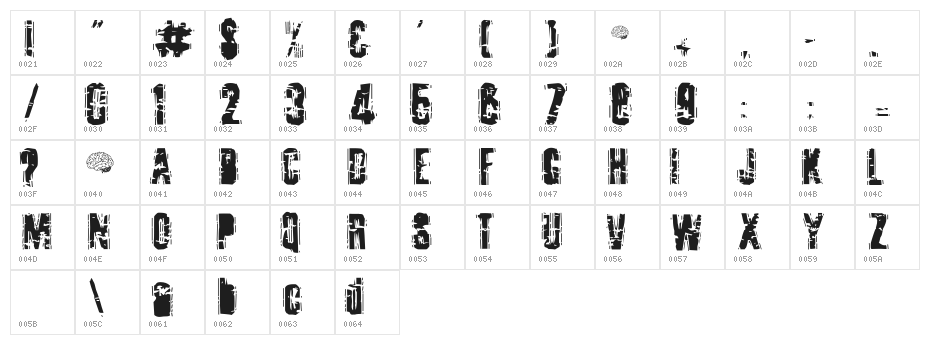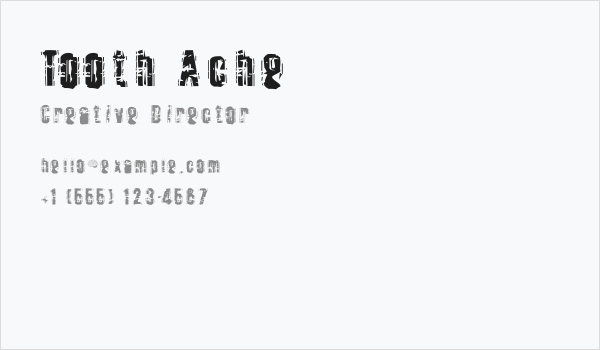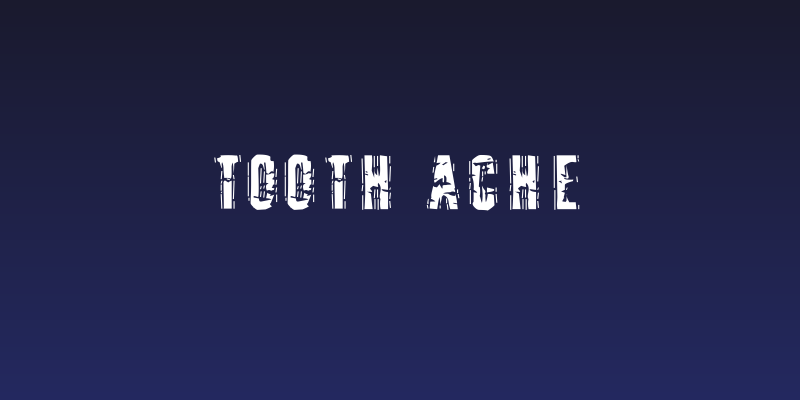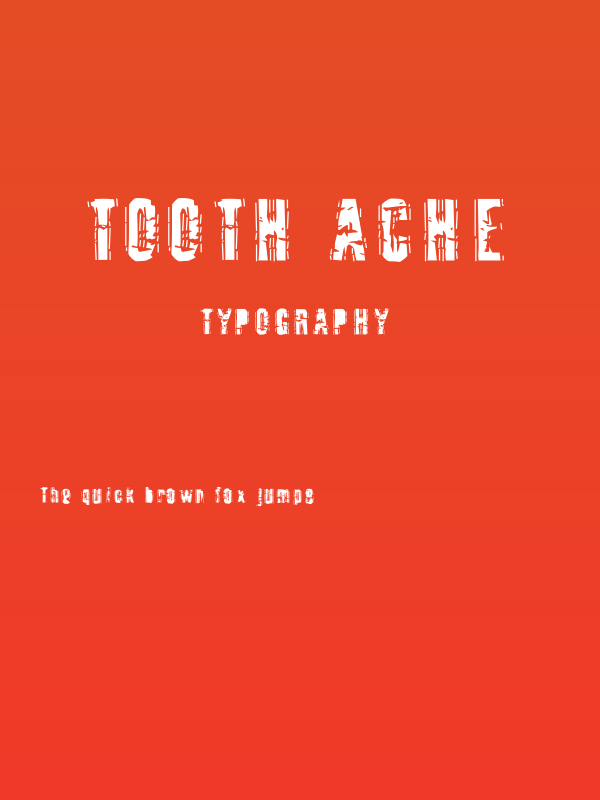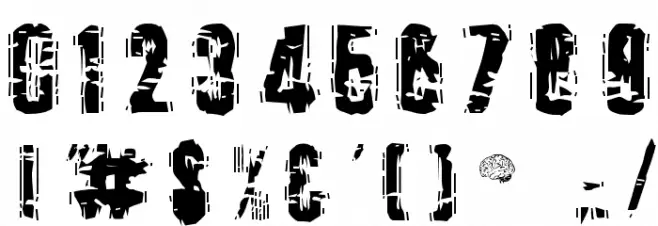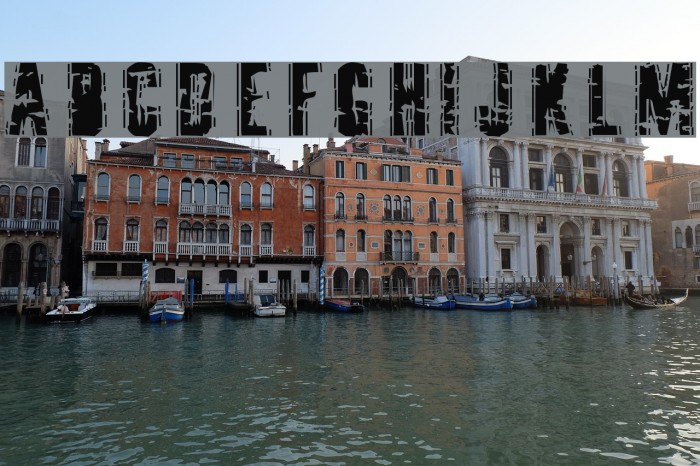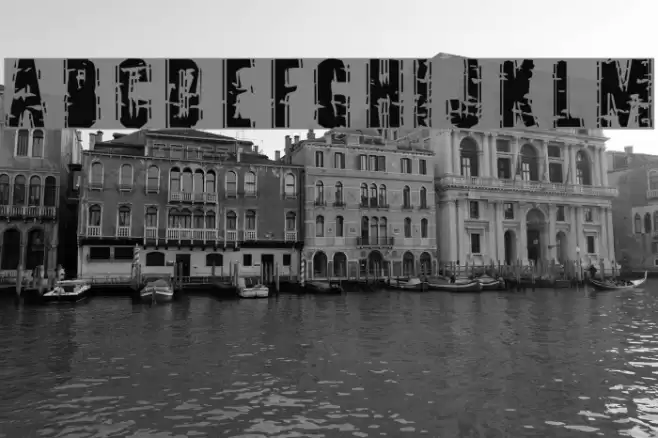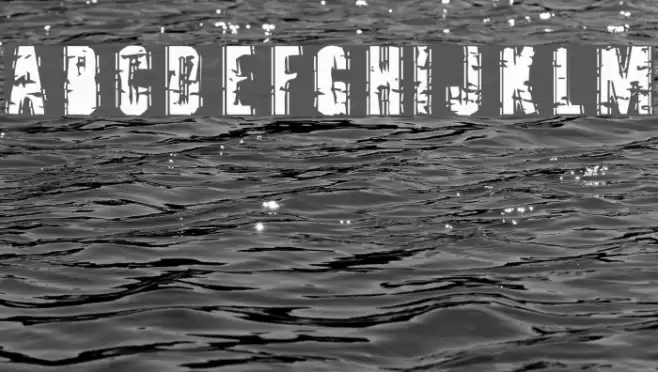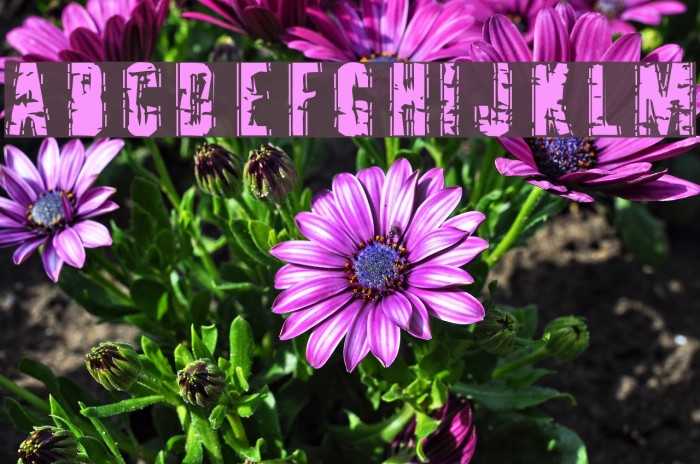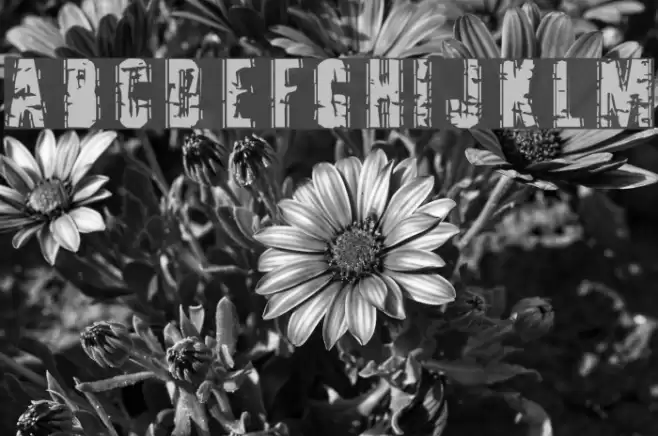
Tooth Ache Font
Tooth Ache Description
This font features a distressed, grunge aesthetic with a bold and rugged appearance. Each character appears as if it has been weathered or eroded, giving it a unique, textured look. The uppercase and lowercase letters maintain a consistent style, with jagged edges and irregular shapes that convey a sense of chaos and energy. The numbers and special characters follow the same design principles, making the font cohesive across all elements. This style is ideal for projects that require a raw, edgy feel.
| Overall Style | Grunge, Edgy |
| Proposed Projects | Ideal for album covers, posters, streetwear branding, and any design needing a gritty, urban vibe. |